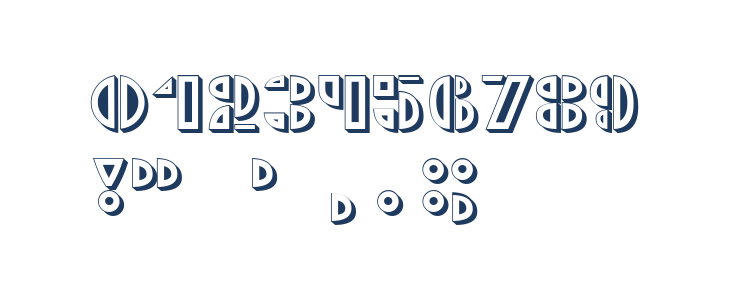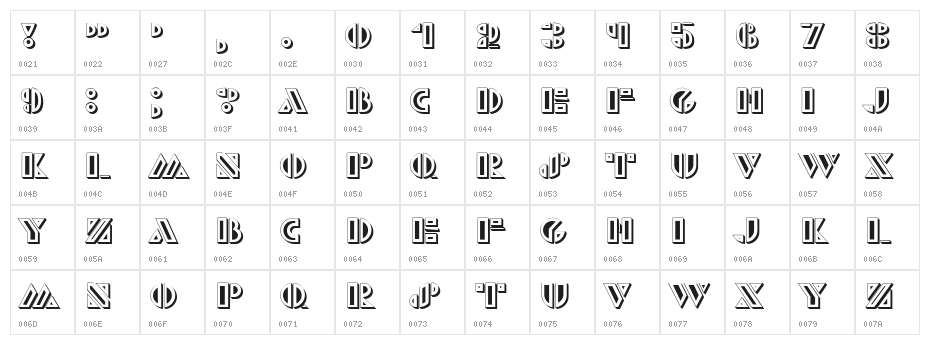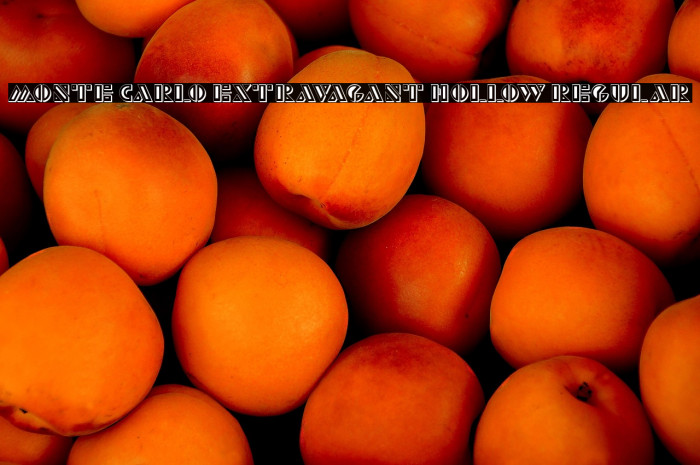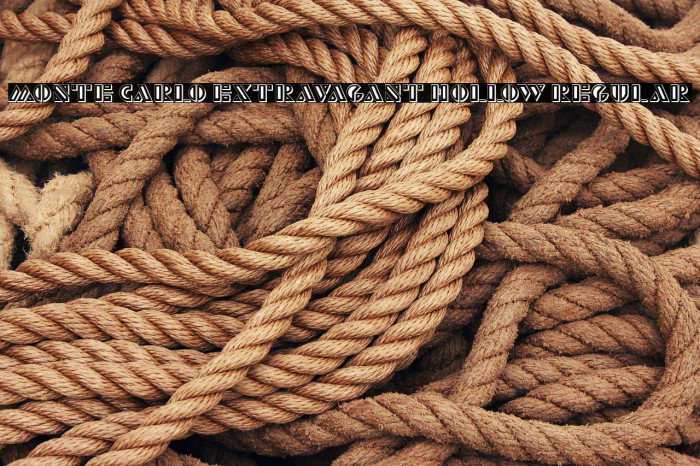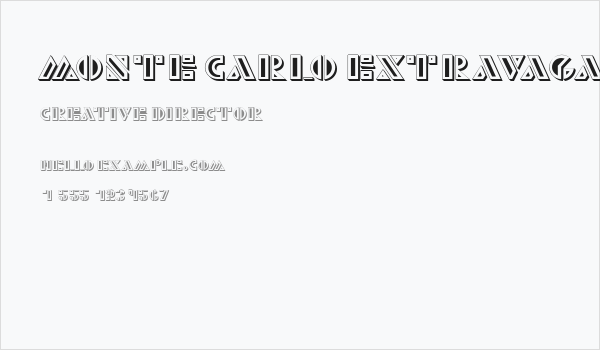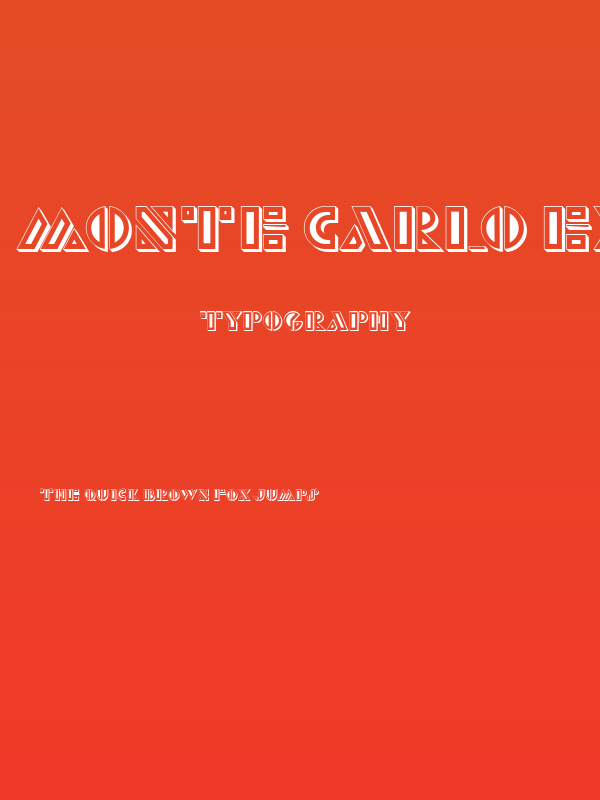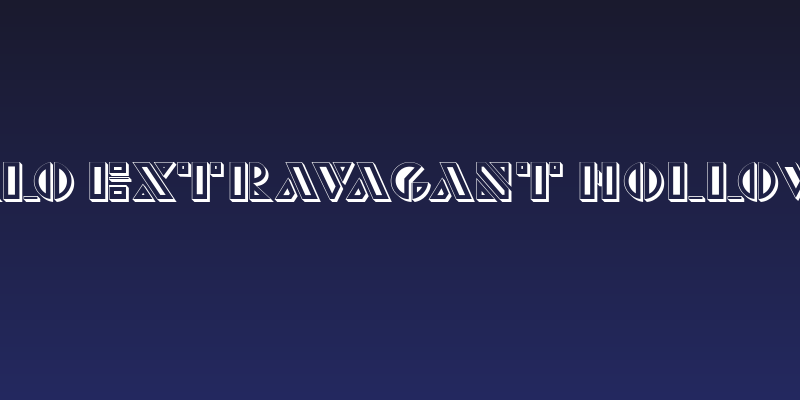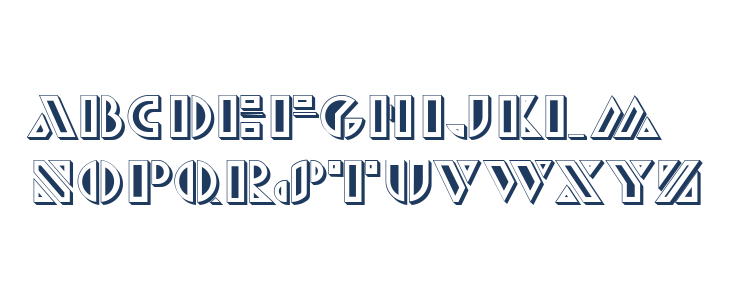
Monte Carlo Extravagant Hollow Regular Font
Monte Carlo Extravagant Hollow Regular Description
This font features a striking and bold design with hollow interiors, creating a unique and extravagant appearance. The geometric shapes and sharp angles give it a modern and artistic flair. Each character is outlined with a thick border, enhancing its visibility and making it stand out. The font's style is both decorative and playful, suitable for creative and eye-catching designs. Its hollow nature adds a sense of depth and dimension, making it ideal for projects that require a bold statement.
| Proposed Projects | Ideal for posters, logos, headlines, and any design that requires a bold and artistic touch. |